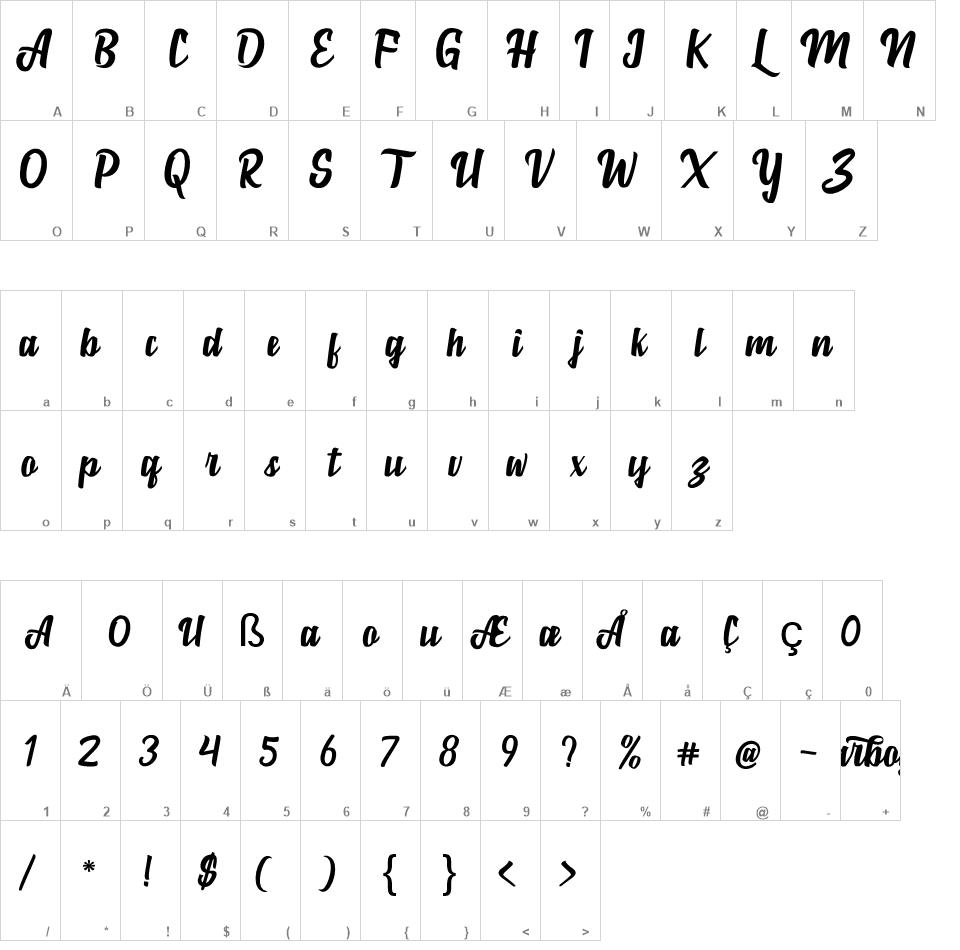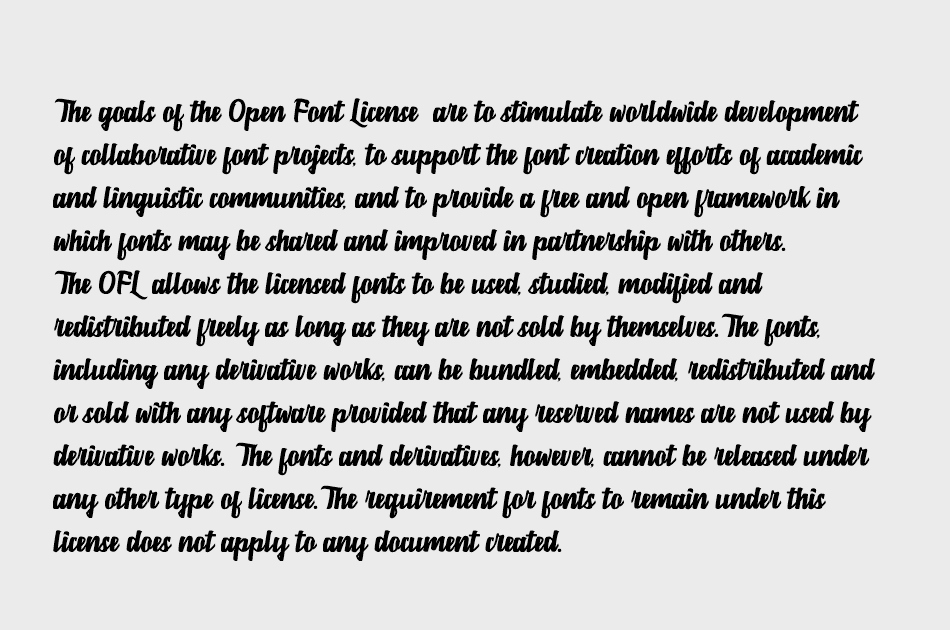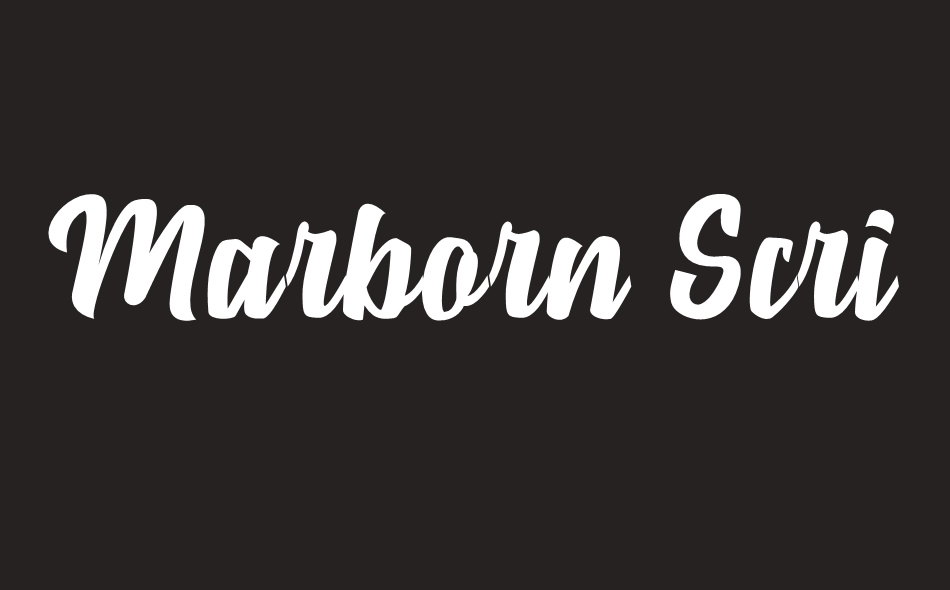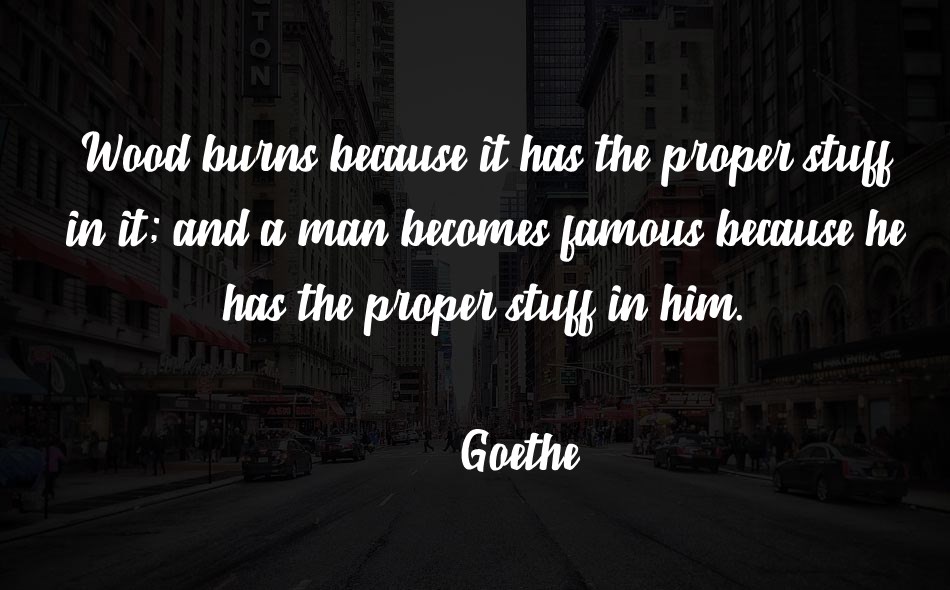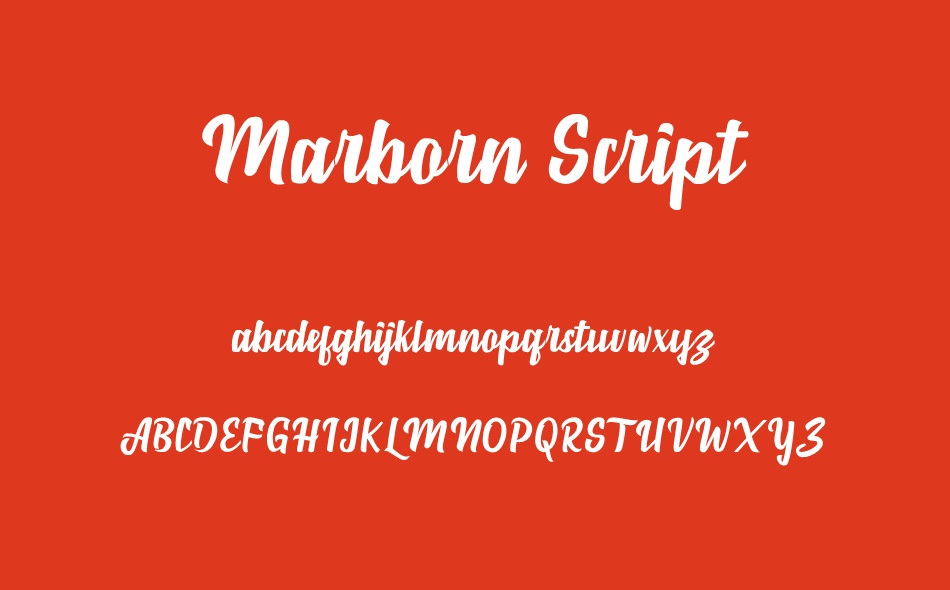
Marborn font
Marborn Bold Script Typeface modern suitable for your design needs. This font is suitable for designs such as logo designs, t-shirts, branding, social media posts, thumbnails, mugs, tupperware, tote bags, and various other design purposes.
Opentype Feature
- 9 Alternate
- 1 Swash
- Ligature